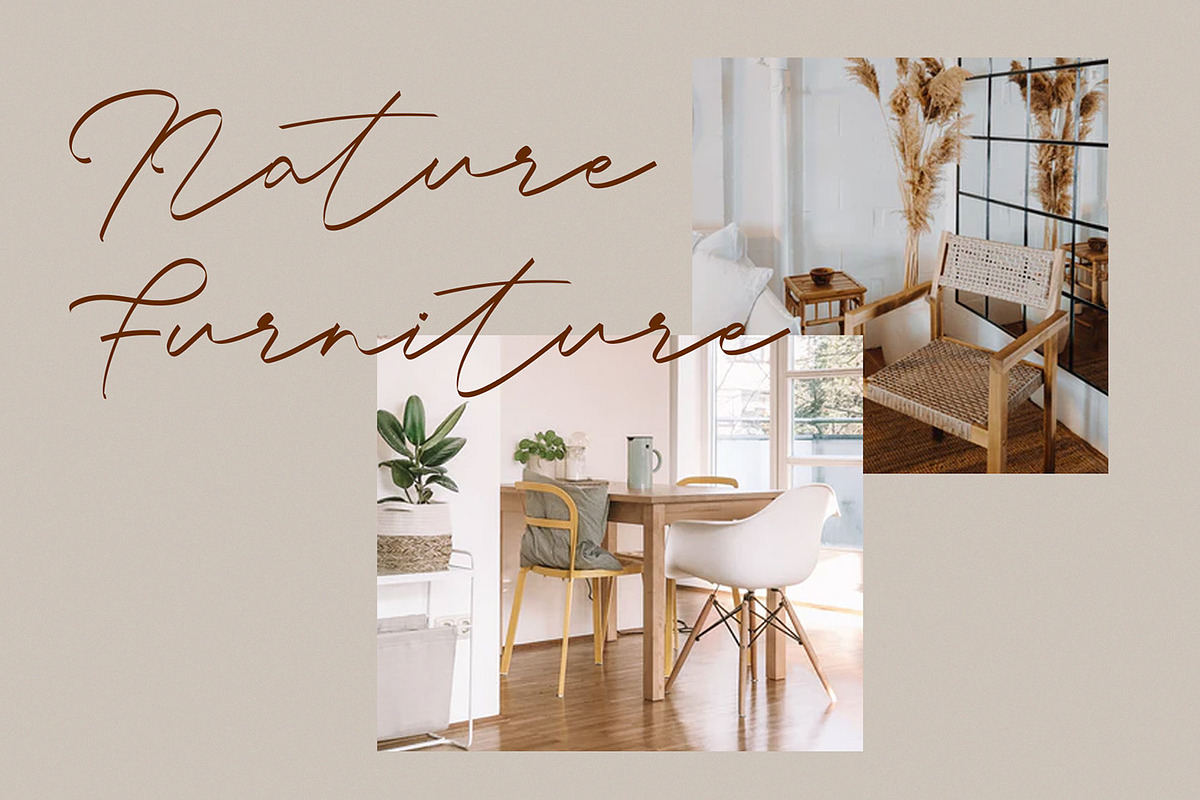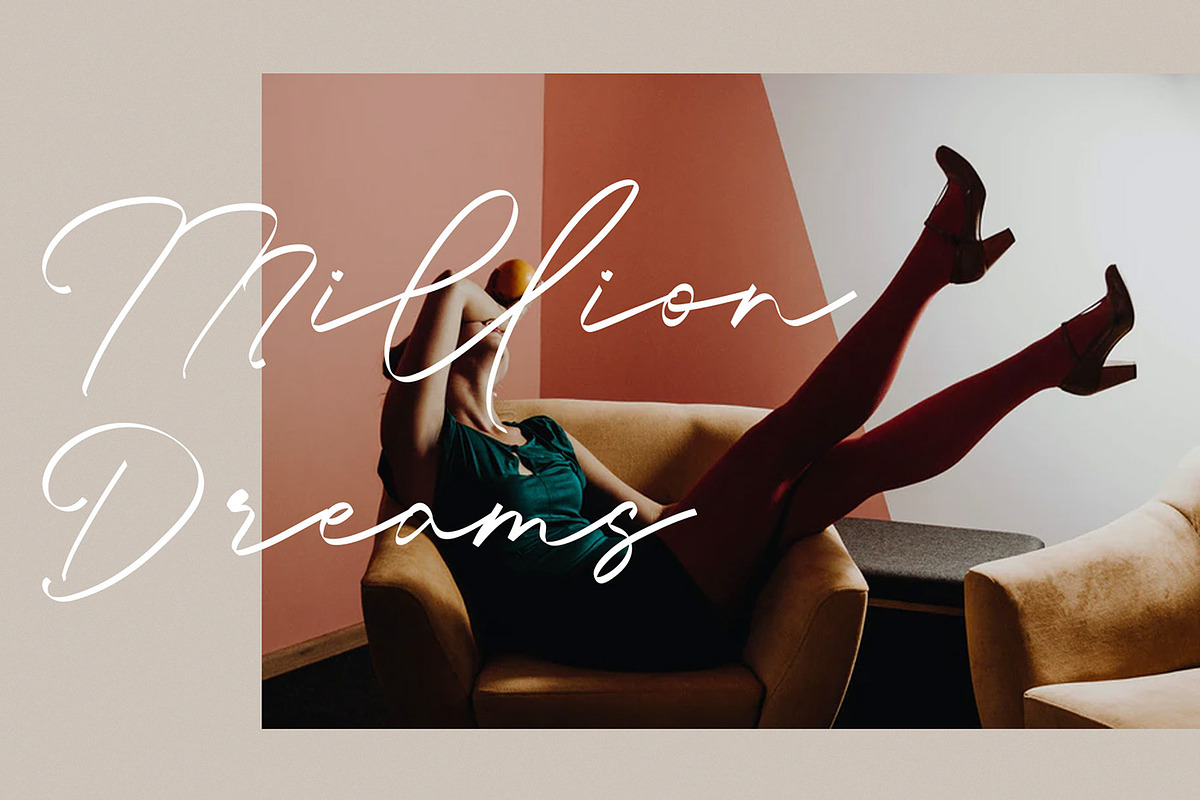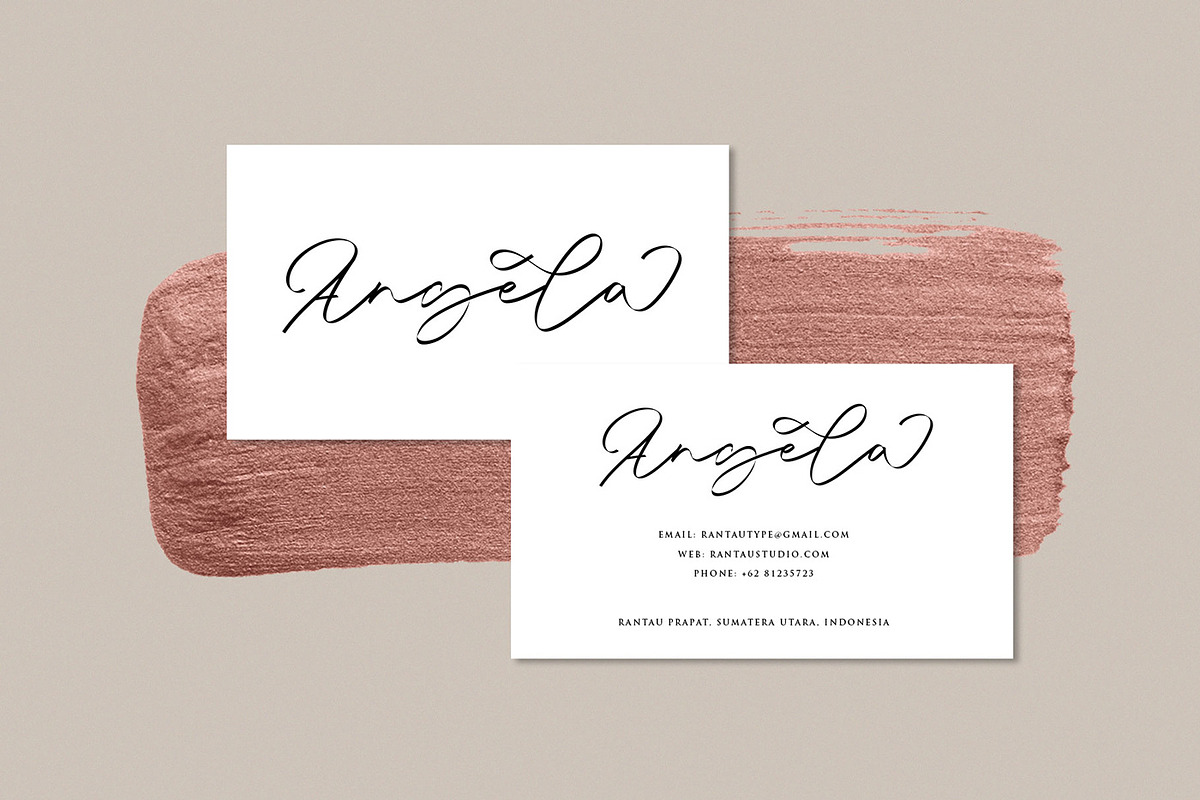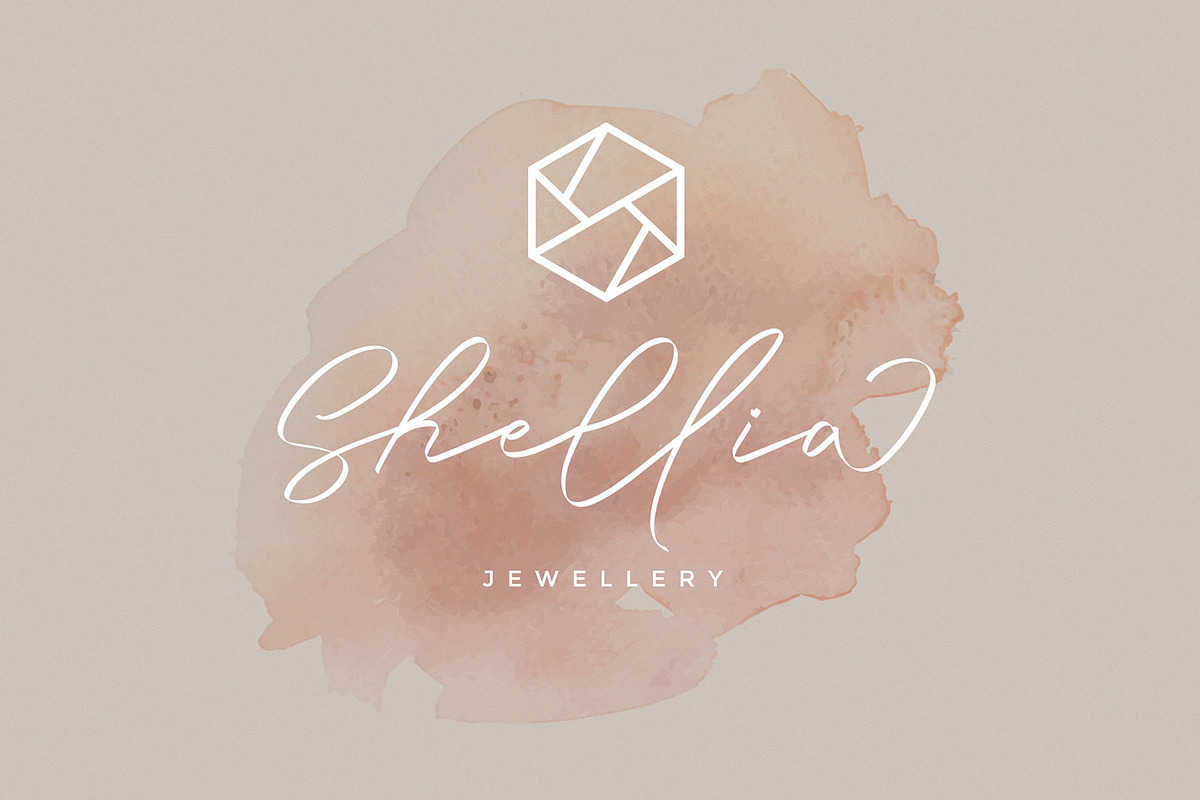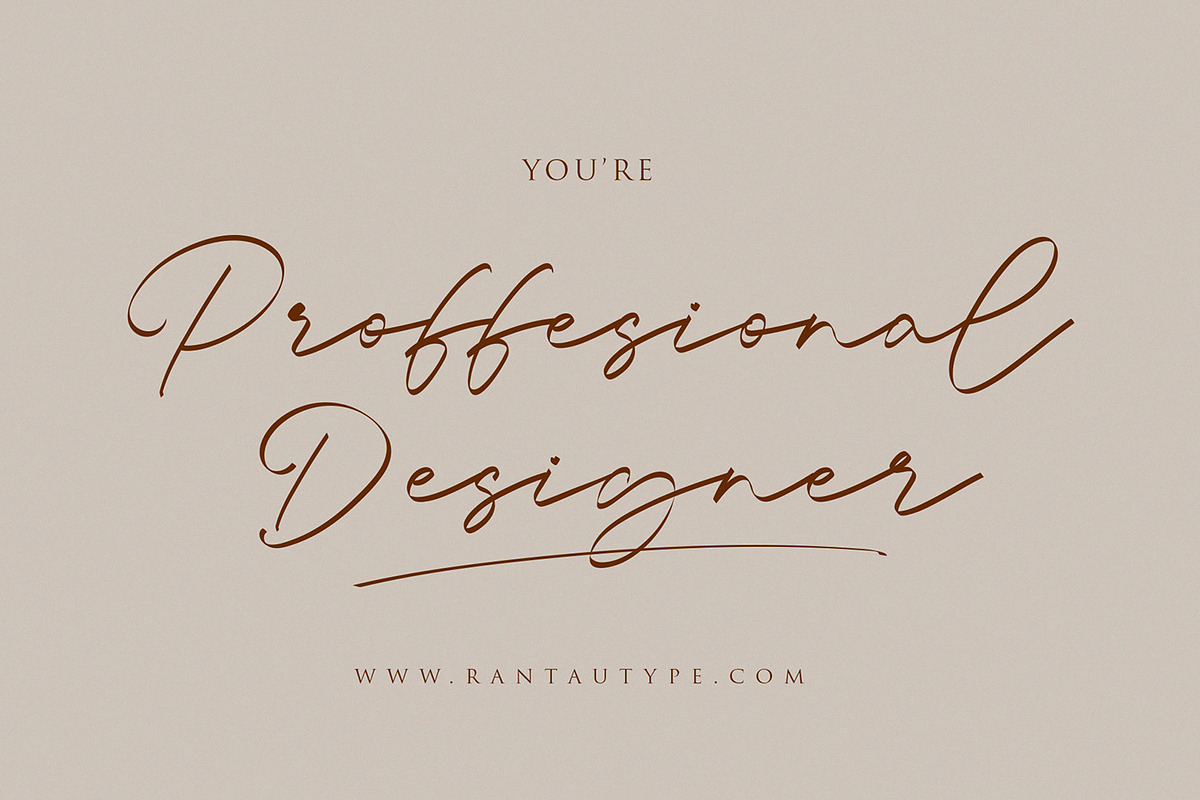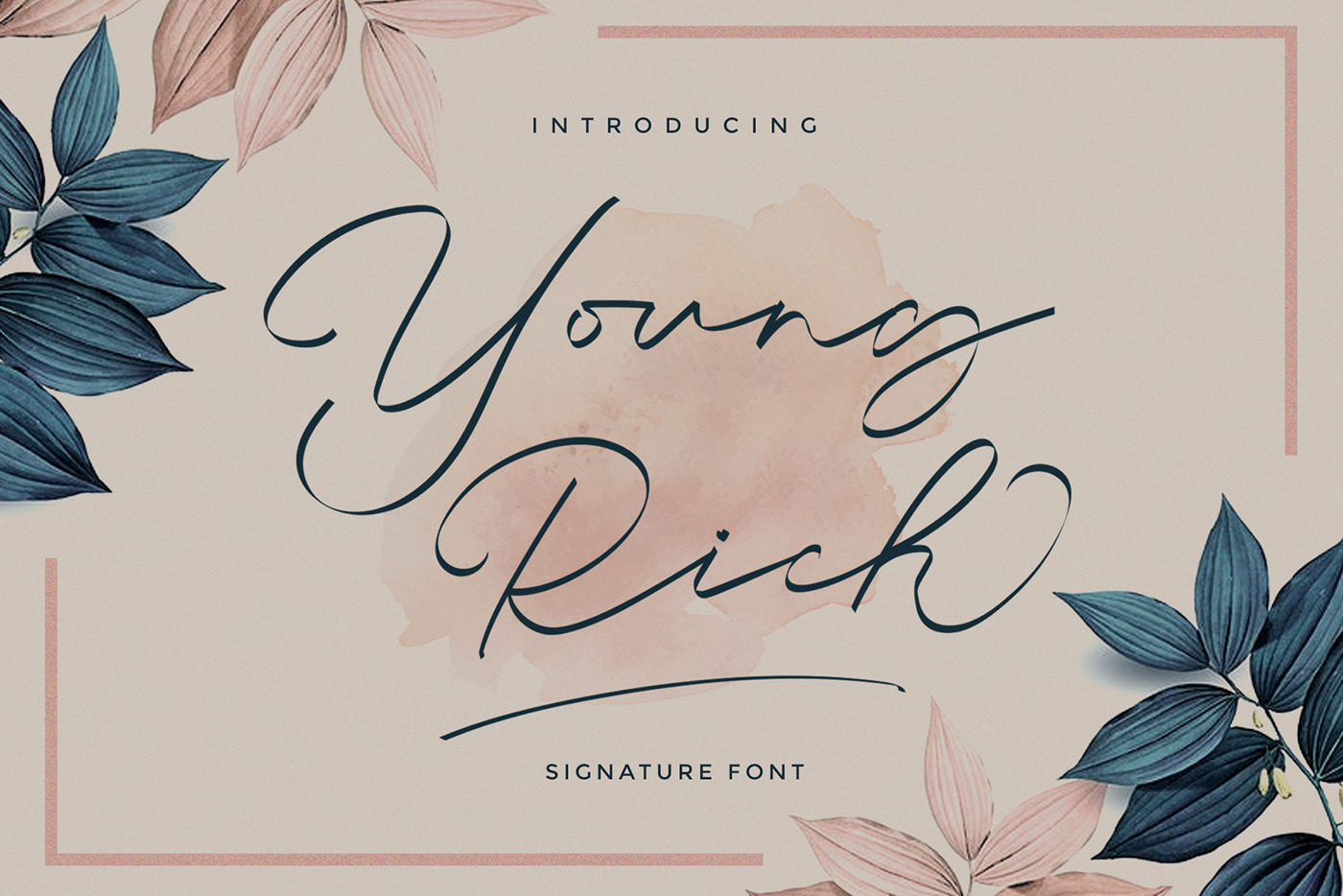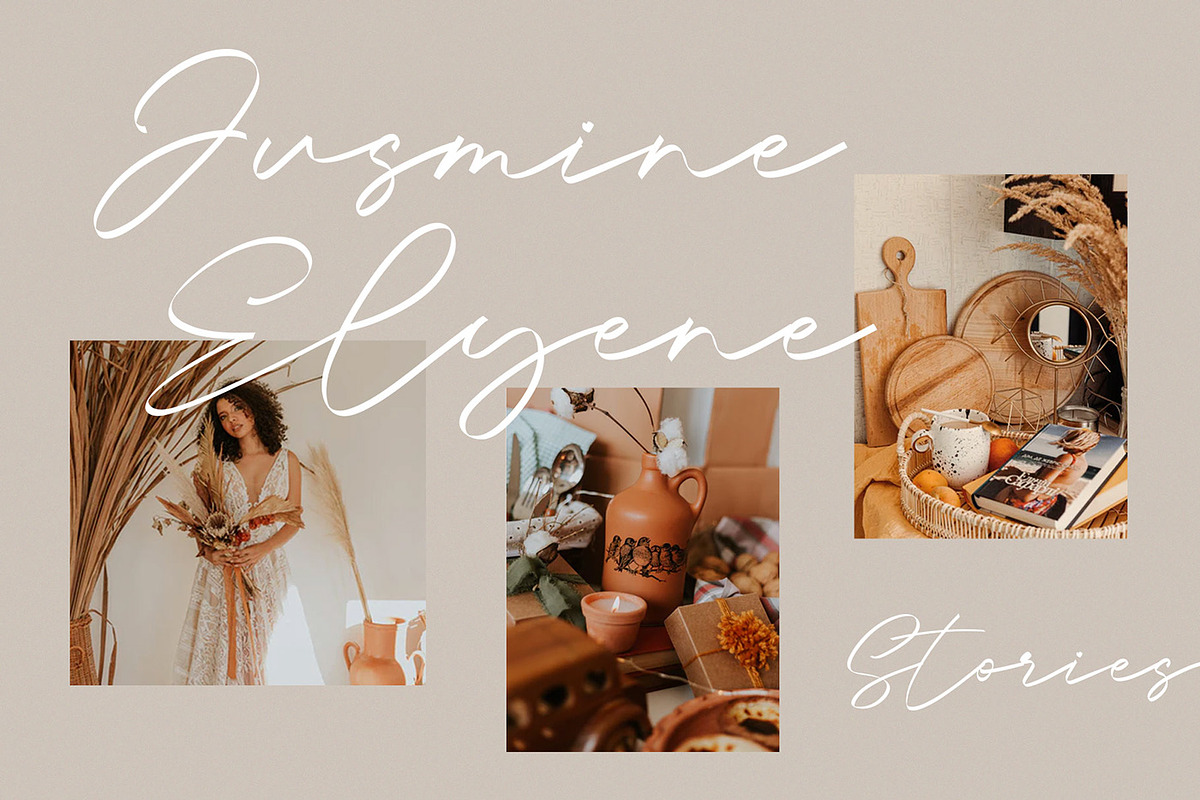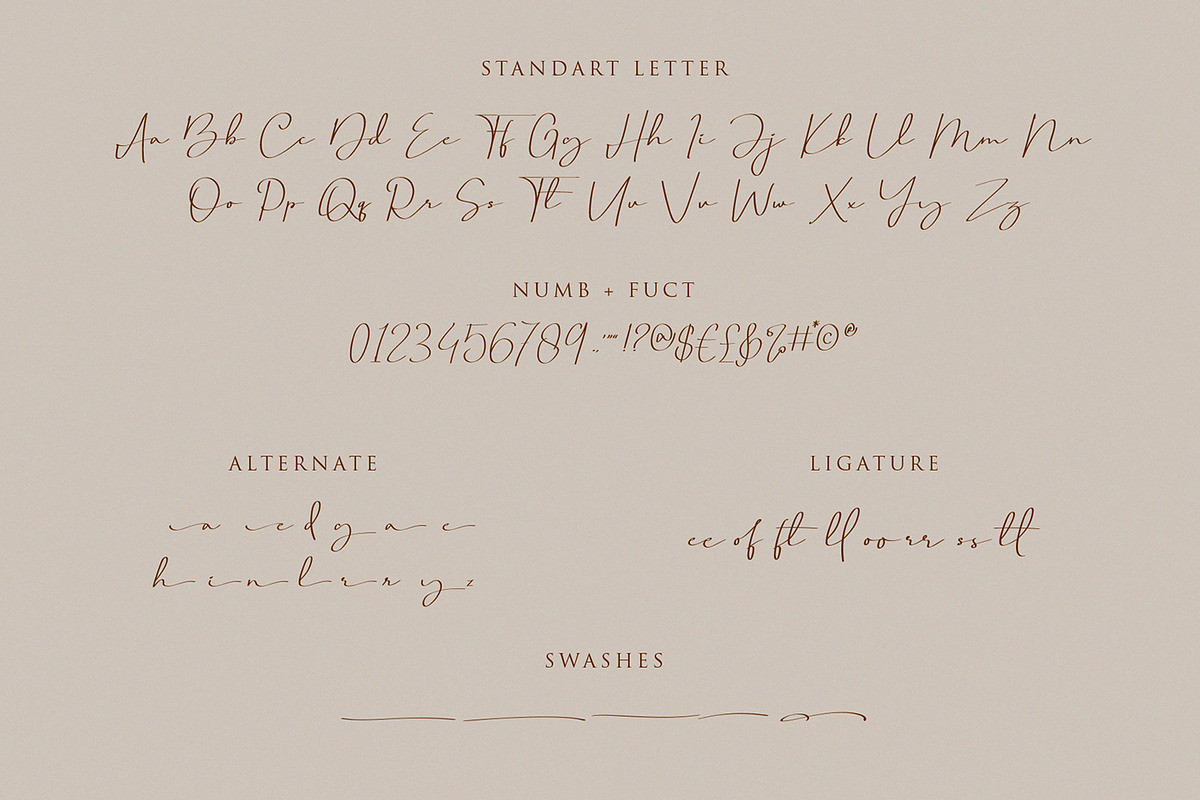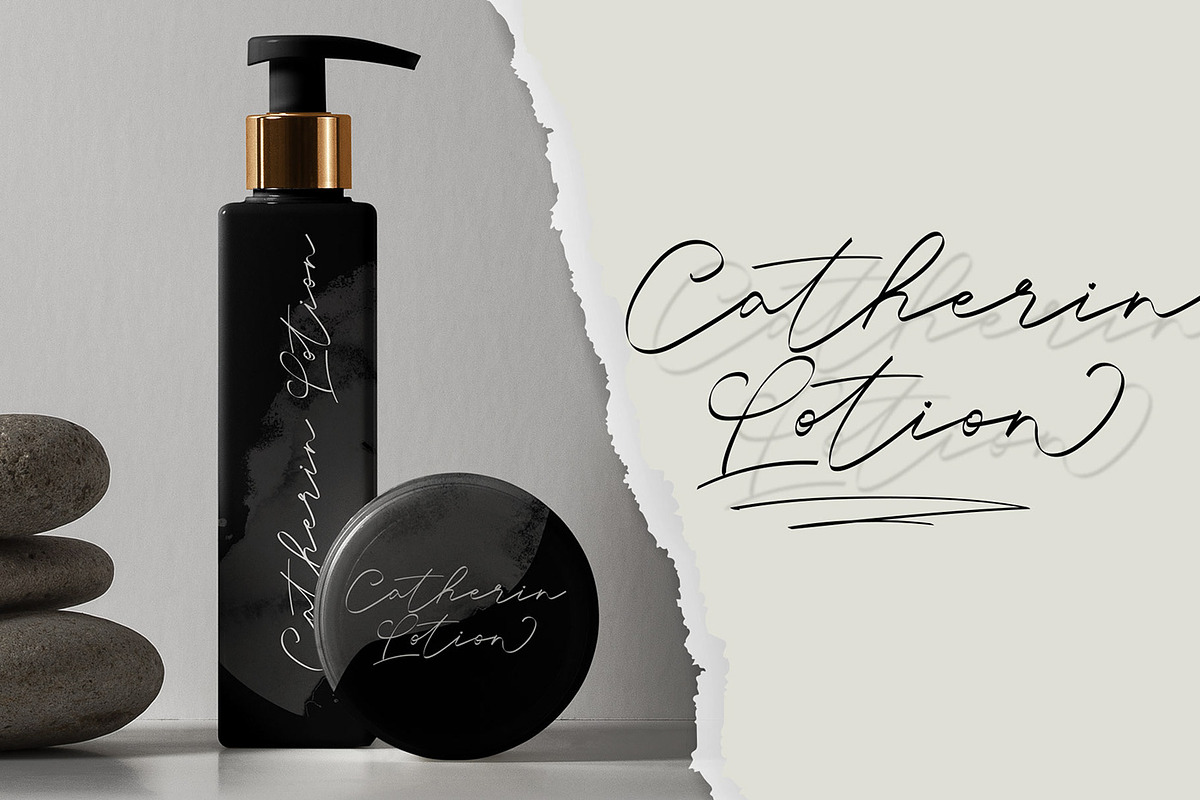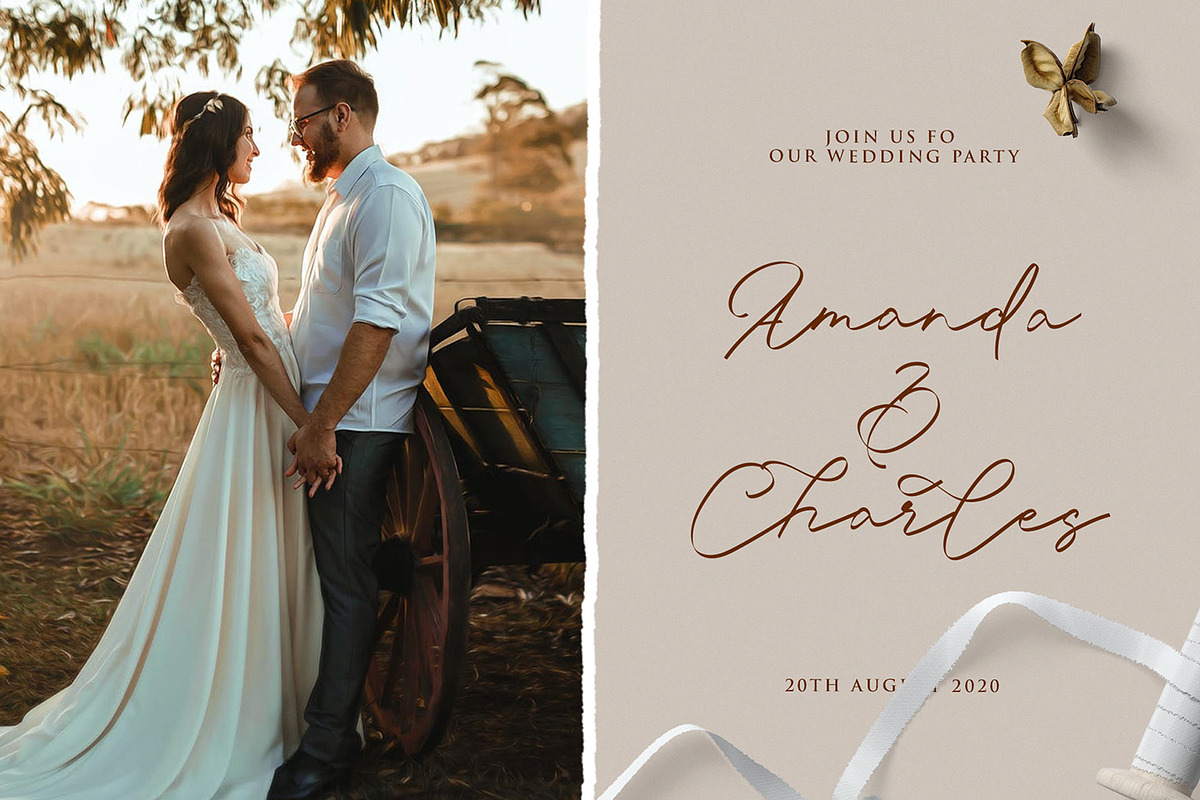
Young Rich - Stylist Font
Hi Ladies and Gentleman ! Proudly present Another styles font “Young Rich” script Signature handwritten font. This font reflects a rich young man who has a very elegant style which can be interpreted professional. we keep this font looks elegant, classy, readable, stylish, catchy and easy to use. Young Rich is the great choice for watermark on photography, signature or signature logo design, quotes, album cover, business card and many other design project. Young Rich is here to make your work to high level!!!
- Alternate and ligature